Are you looking forward to Spring? Oh. My. Goodness. Me too.
We’ve gotten a few brief glimpses of what’s coming, and I’m so excited! To pass the time, let’s have a look at some quirky spring fonts.
Now, these are not your usual girly fonts. These ones are fun! Ok, a few of them are girly. I couldn’t resist! But most of them have character.
A lot of them have floral elements in the letters or extras, making these extra springtime-y.
The second font on this list is even a Color Font! Cool, right? Now, you need special software to use this kind of font as of the time I’m writing this post, so do your research first. But, if you get the chance, try out color fonts! You get transparency and color within the font itself, as opposed to getting that through individual PNG letters. Cool, right?
But you don’t need fancy color fonts to get a great spring feel for your next project. Each of these fonts has a unique, quirky feel to it, so you really can’t go wrong!
Now for my favorite quirky spring fonts!
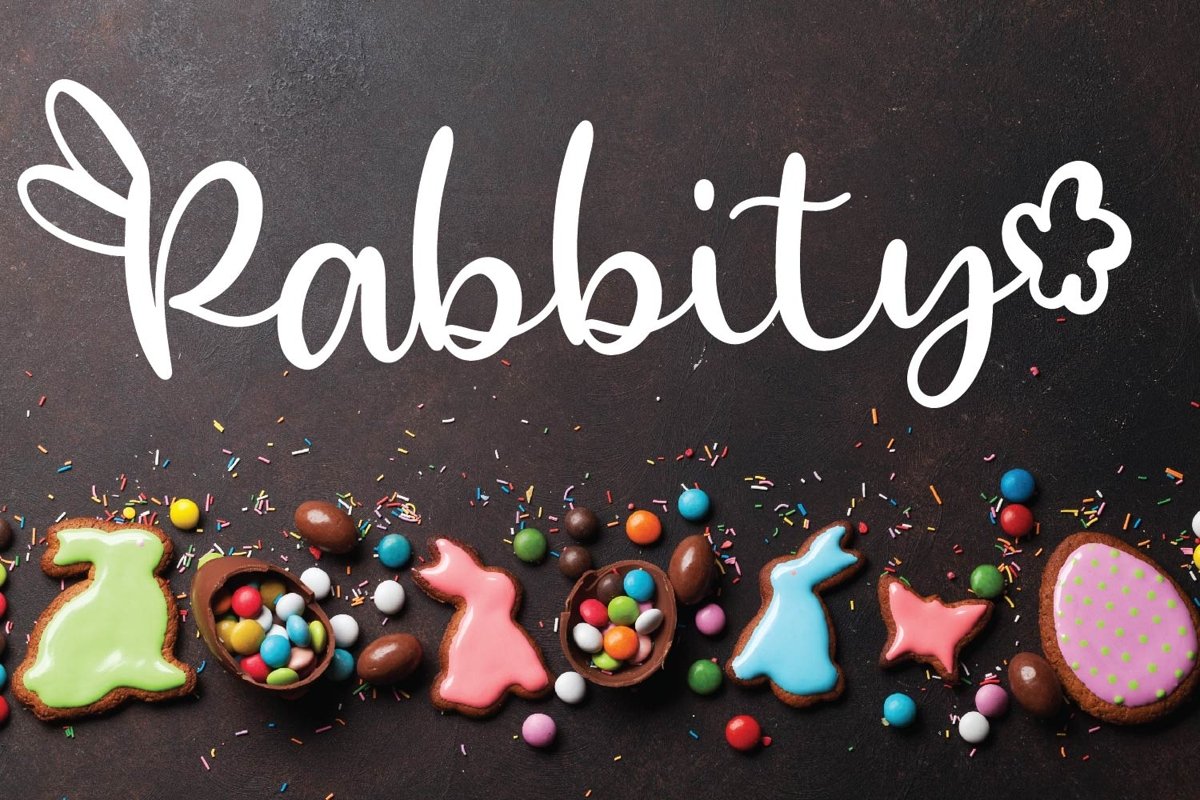
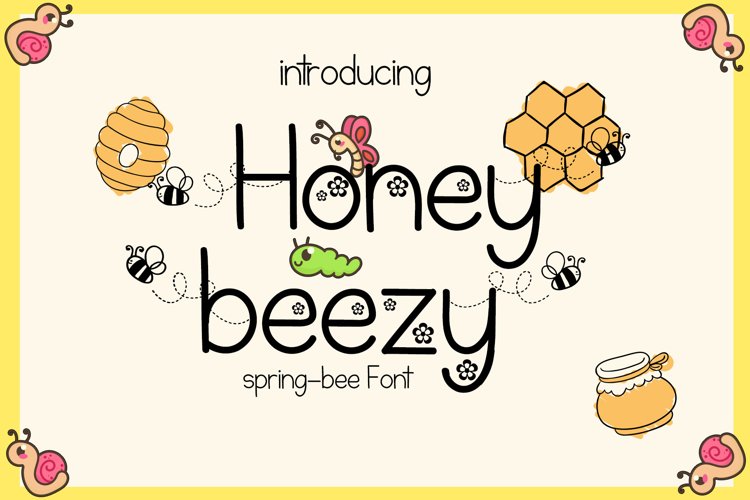
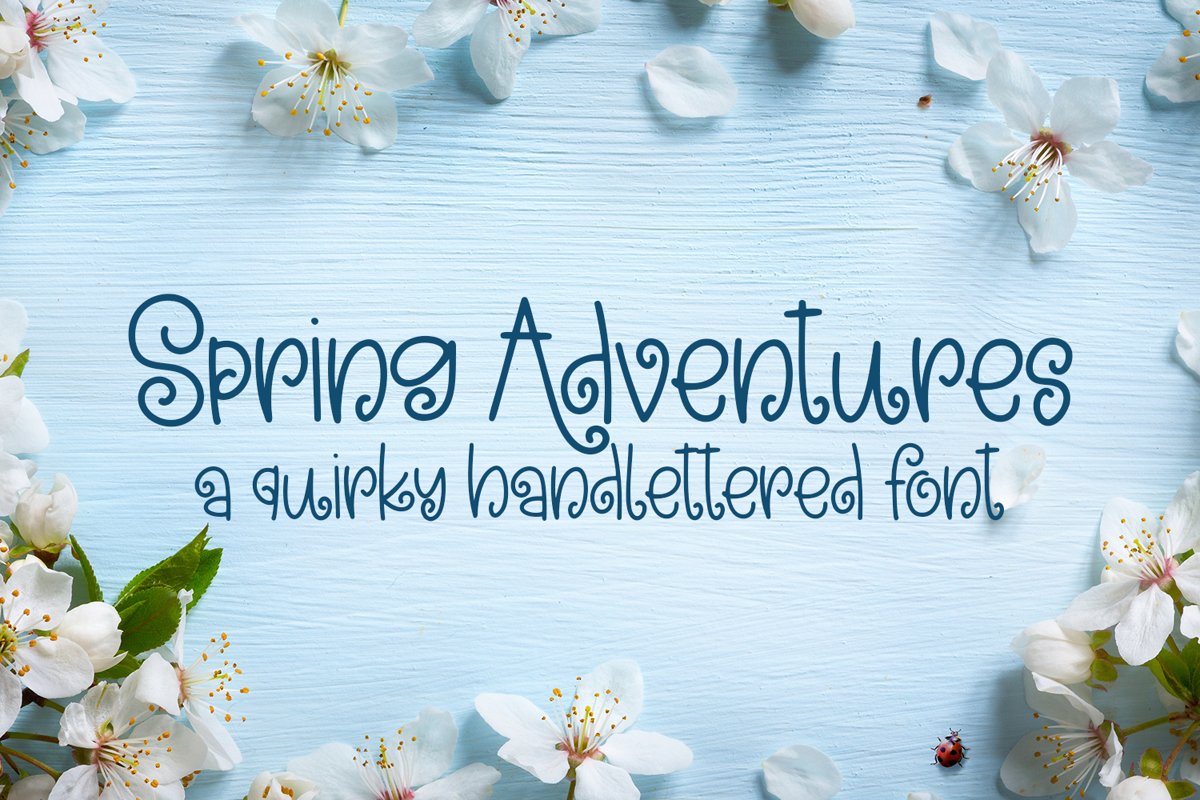
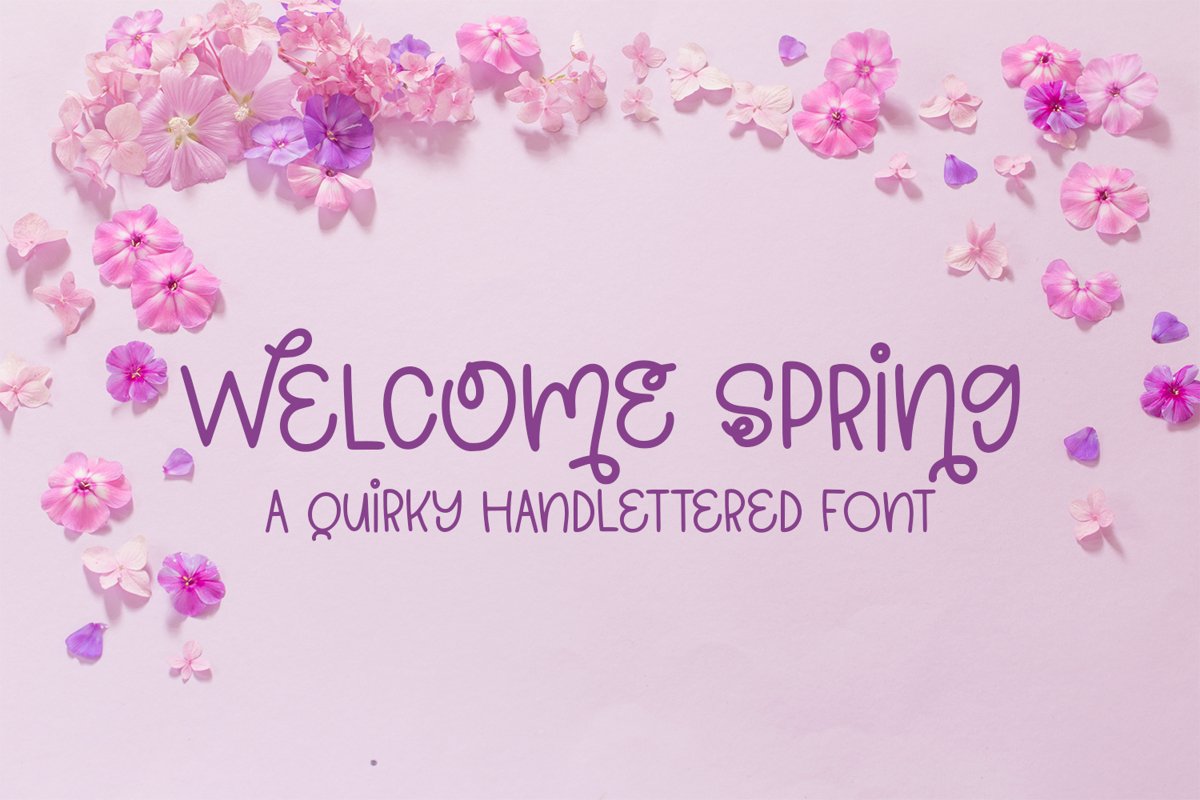
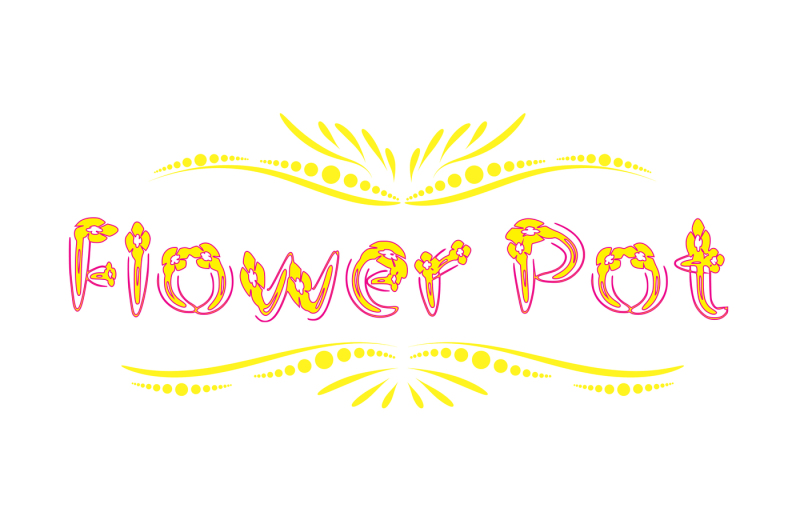
See what I mean when I say they’re quirky spring fonts? These aren’t your usual modern calligraphy fonts! Enjoy!